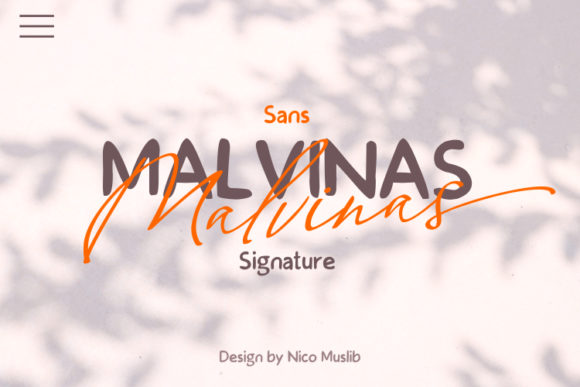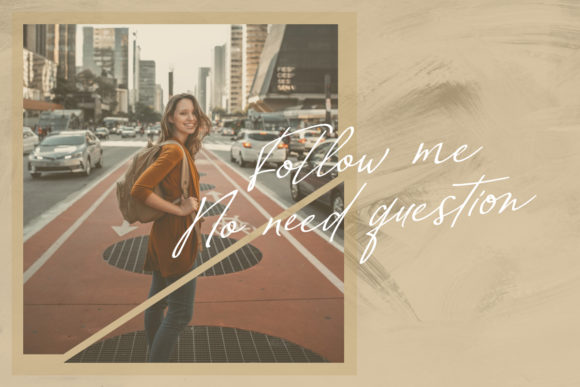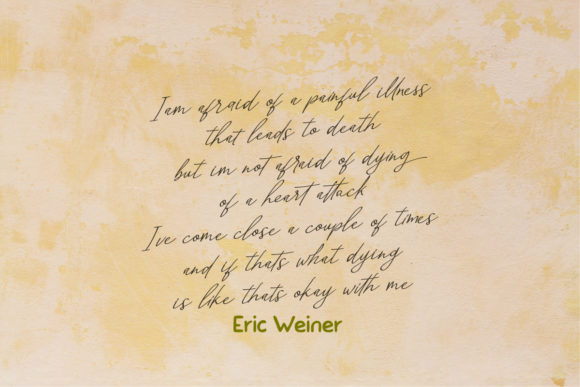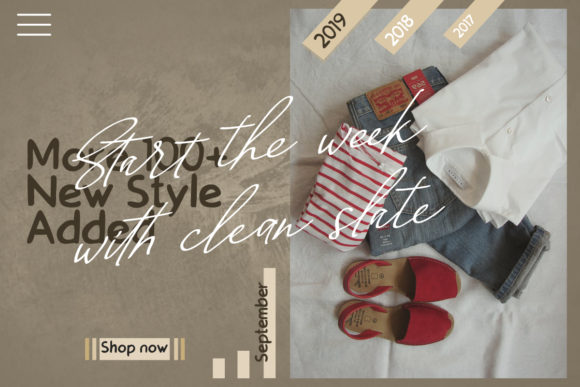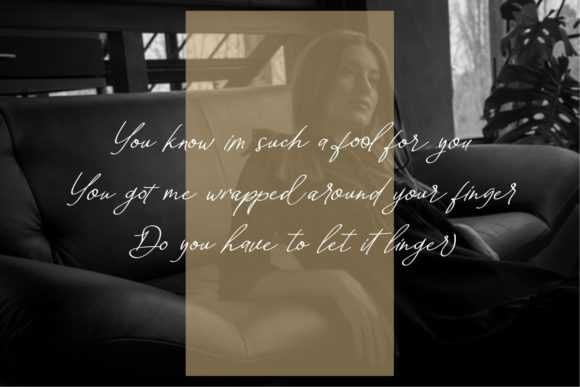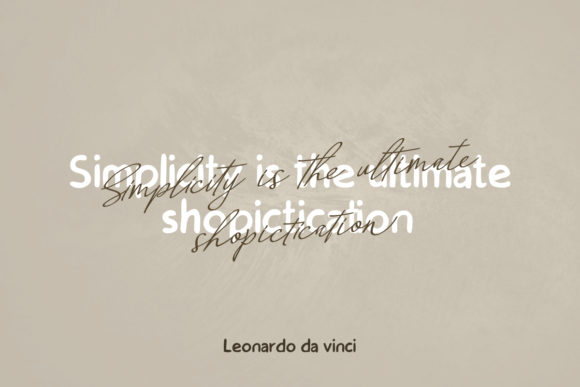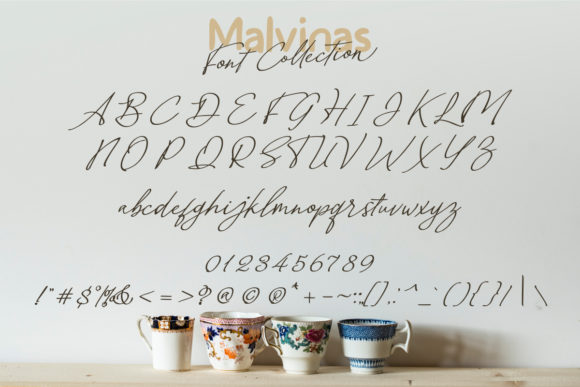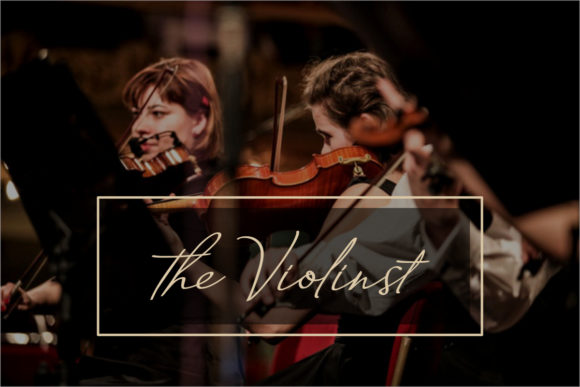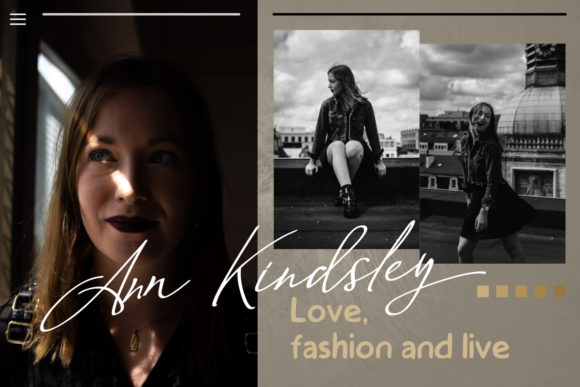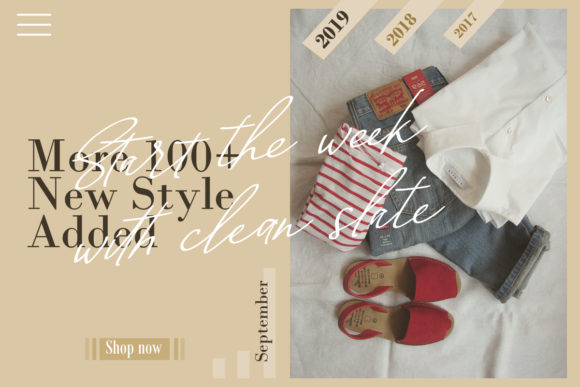
HomeScript FontsMalvinas Duo Font Script Fonts Malvinas Duo Font FacebookXPinterestWhatsApp Malvinas Duo Font Poster 2 Malvinas Duo Font Poster 3 Malvinas Duo Font Poster 4 Malvinas Duo Font Poster 5 Malvinas Duo Font Poster 6 Malvinas Duo Font Poster 7 Malvinas Duo Font Poster 8 Malvinas Duo Font Poster 9 Malvinas Duo Font Poster 10 Malvinas Duo Font Poster 11 Malvinas Duo Font Poster 12 About Malvinas Duo Font Malvinas is a beautiful font dup that brings together a stunning script and a cool sans serif font. DOWNLOAD ON CREATIVE FABRICAThis font is sold and delivered by Creative Fabrica. Font Canyon may earn a commission if you buy through this link. People also explored Sun & Her Font A Good Day Font Espresso Font Mochigan Font Duo Saturday Holiday Font Procyon Font Santiago Font Silver Bella Canvas 3001 T Shirt Mockup Wonderfull Font 282 0 TagsMalvinas Duo Font Previous articleRaflesya FontNext articlePremside Font LEAVE A REPLY Cancel reply Comment: Please enter your comment! Name:* Please enter your name here Email:* You have entered an incorrect email address! Please enter your email address here Website: Save my name, email, and website in this browser for the next time I comment. Personal Use Free Qiwqiw Personal Use Free Read more about this font Talking on Personal Use Free Read more about this font Unlock Endless Creativity with the FREE September Clipart Huge Bundle (Valued at $700!) Personal Use Free Read more about this font Kaysan Personal Use Free Read more about this font BLOG Best Fonts for YouTube Videos: Make Your Thumbnails Stand Out Best Fonts for YouTube Videos: Make Your Thumbnails Stand Out Choosing the right font can make a massive difference in how your YouTube videos perform.... How to Cut Any Font on Cricut: Convert a Font to SVG (Free) Free Fonts Risk: Why Free Fonts Can Be Dangerous for Designers Free vs Paid Fonts: Why Investing in Premium Fonts Is Worth It